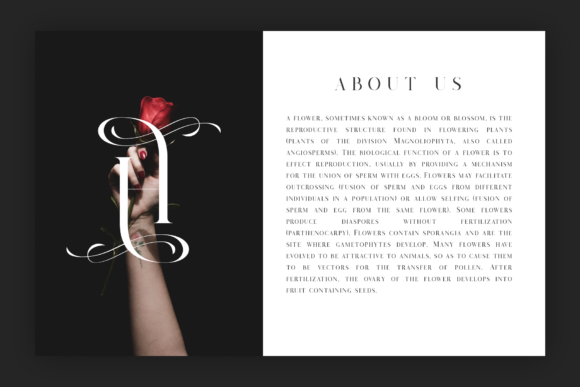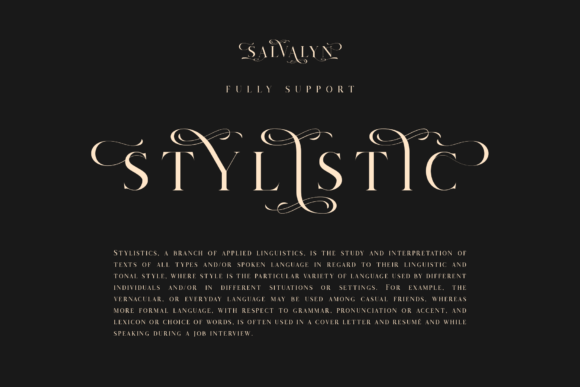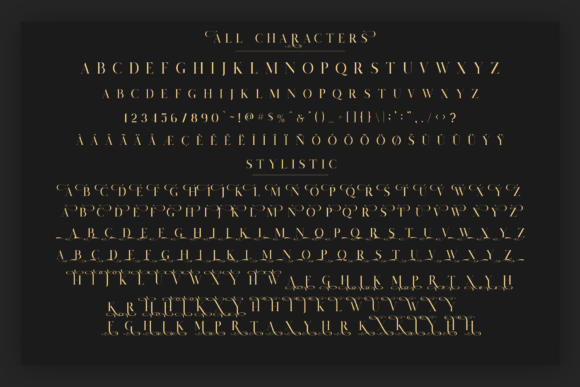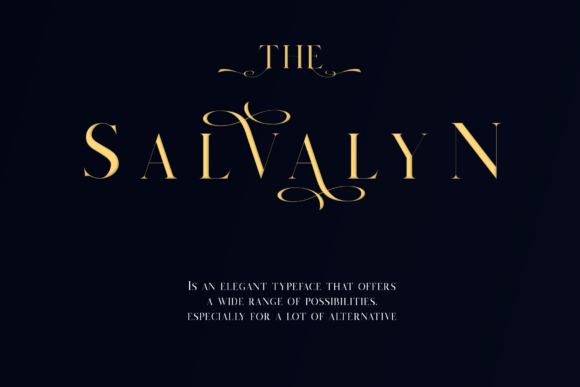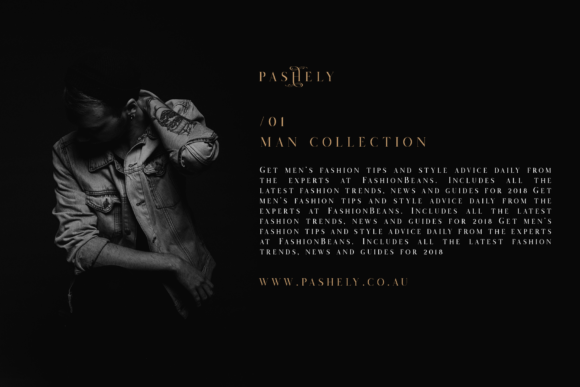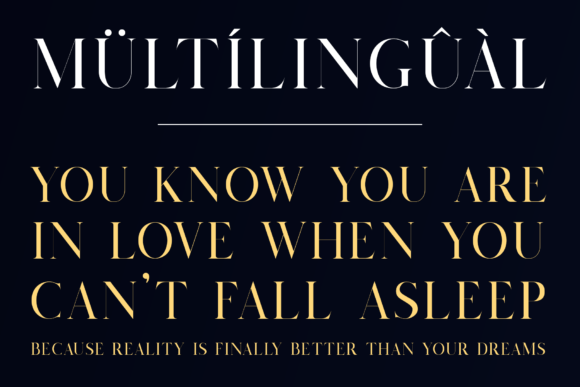
Introduction to Salvalyn Font
The Salvalyn is an elegant serif font that offers a wide range of possibilities.
It offers an attractive tool for producing elegant decorative lettering The Salvalyn can be used for various purposes such as: DIY projects, book titles, wedding fonts, pop vintage designs, retro designs or any other purpose to make your art / design project look elegant and classy.
Key Features of Salvalyn Font
Salvalyn Font offers exceptional quality and versatility, making it a valuable addition to your design toolkit. Whether you’re creating for personal projects or commercial use, Salvalyn Font delivers professional results.